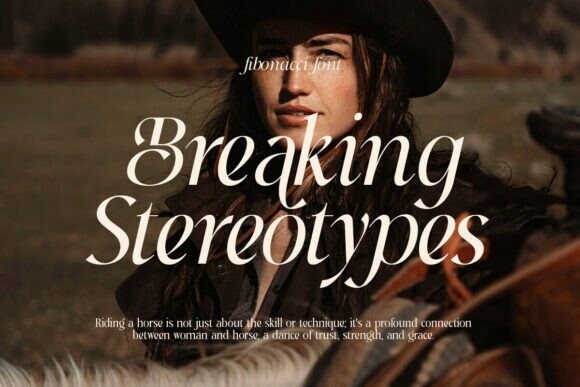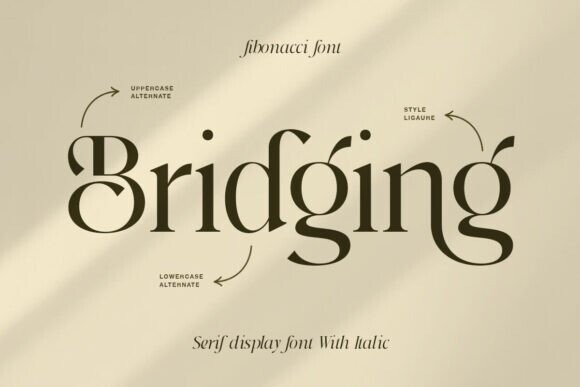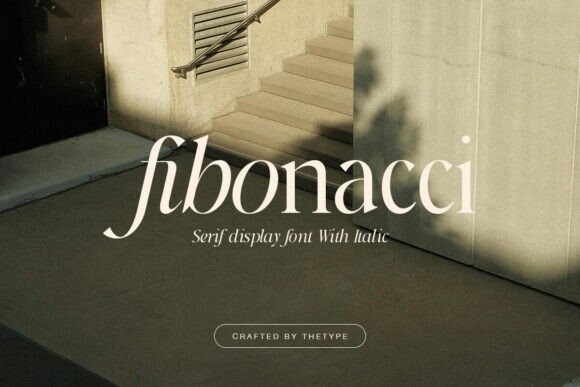
Fibonacci Font
Designer: The_Type
Fibonacci Font – a modern serif font inspired by the genius of the Fibonacci sequence. This font can appear more classic and conservative with its serif and italic styles, making it perfect for text-heavy designs. At the same time, it can be more expressive, playful, and modern when using alternative characters and ligatures. Experiment with these options to bring a unique flair to your project!